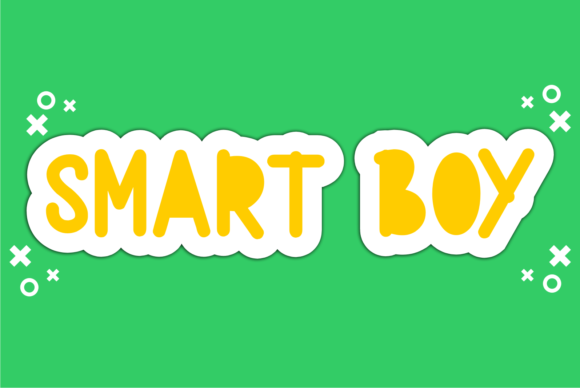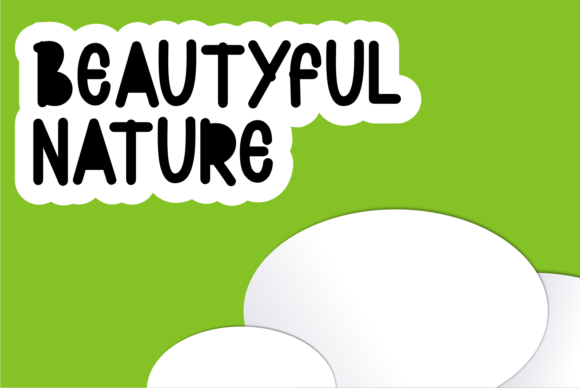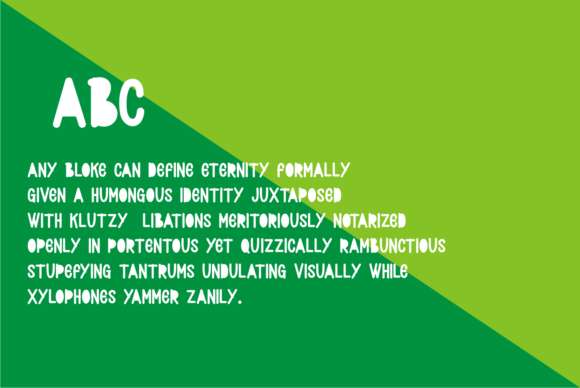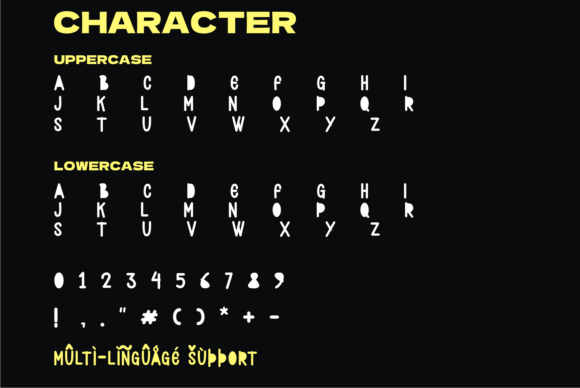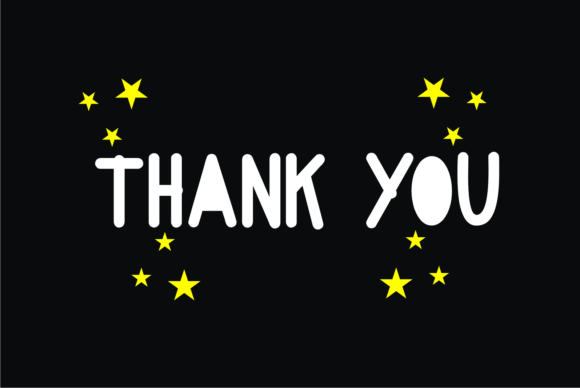
Introduction to Kilauhose Font
Have you ever stared at a blank canvas, waiting for that spark of creativity to strike? For designers, this moment is all too familiar. But what if you had the perfect tool to bring your ideas to life? Enter the Kilauhose Font, a high-quality display font that’s perfect for making your creative projects stand out from the crowd.
As a valuable design resource, Kilauhose Font offers a unique blend of style and versatility. Whether you’re creating a logo, badge, or poster, this font is sure to make your design pop. With its transparent background and free download option, you can easily incorporate it into your next project. And with its trendy and cool aesthetic, you’ll be sure to make a lasting impression.
Key Features of Kilauhose Font
- High-quality design resource with a unique, modern aesthetic, ideal for creative projects.
- Designed with a focus on versatility, making it perfect for use in logos, branding, and typography-based projects.
- Unique characteristics include its clean lines, geometric shapes, and bold typography, making it stand out in creative projects.
Honest Review: Kilauhose Font
I recently came across the Kilauhose Font, and I must say it’s a gem in the world of design resources. With a free download option, it’s accessible to creatives of all levels, making it a fantastic addition to any project.
- High-quality design: The Kilauhose Font boasts a crisp, modern aesthetic that’s perfect for a wide range of creative projects.
- Limited font variations: While the Kilauhose Font is well-designed, it’s limited to a single style, which may not be suitable for every project.
- No bold or italic options: This may be a drawback for designers who require additional font weights or styles.
Overall, the Kilauhose Font is a solid addition to any design arsenal. While it may have some limitations, its high-quality design and ease of use make it a valuable resource for creatives.
The Kilauhose Font is ideal for:
Brand logos and identity design
Marketing materials, such as brochures and flyers